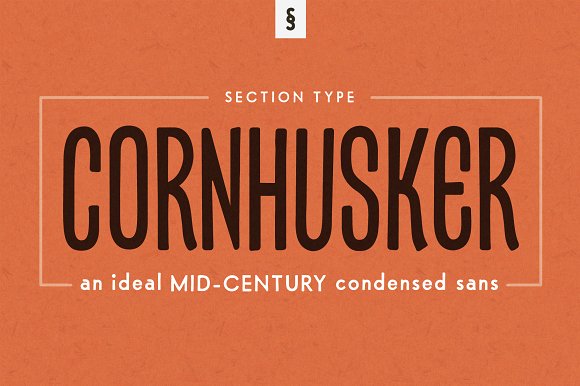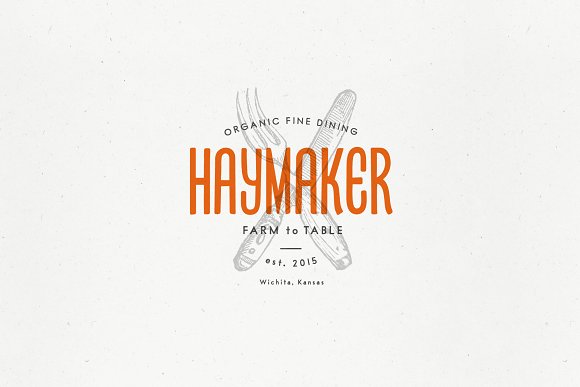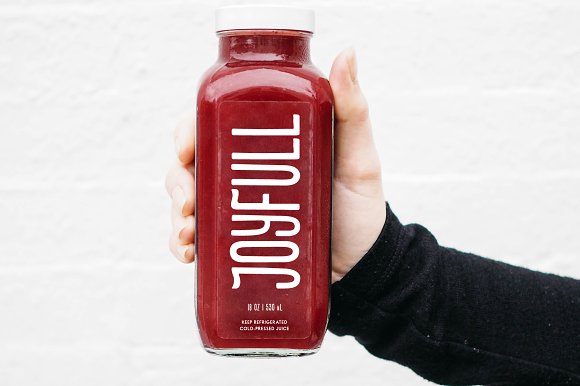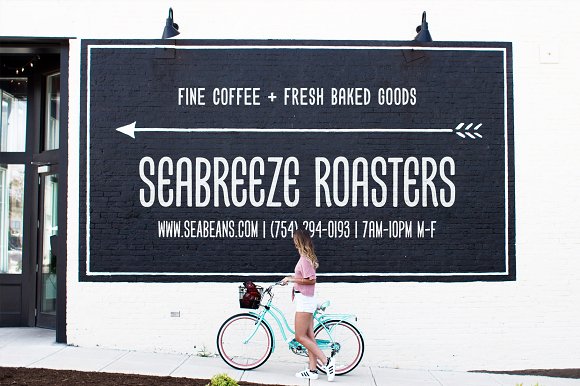
Cornhusker Regular | Condensed Font
Standing tall as an Illinois cornfield in September, Cornhusker Regular is a strapping condensed sans designed by a champion cornhusker. Inspired by 1940s Midwestern signage, it’s warm & charming characters are perfectly at home in logos, beverage bottles and food packaging, restaurant menus, travel advertisements, websites, stationery, handmade product packaging and so much more. If you’re looking for a hand-crafted typeface with punch (who can fit into tight spaces!) then Cornhusker Regular is the font for you.